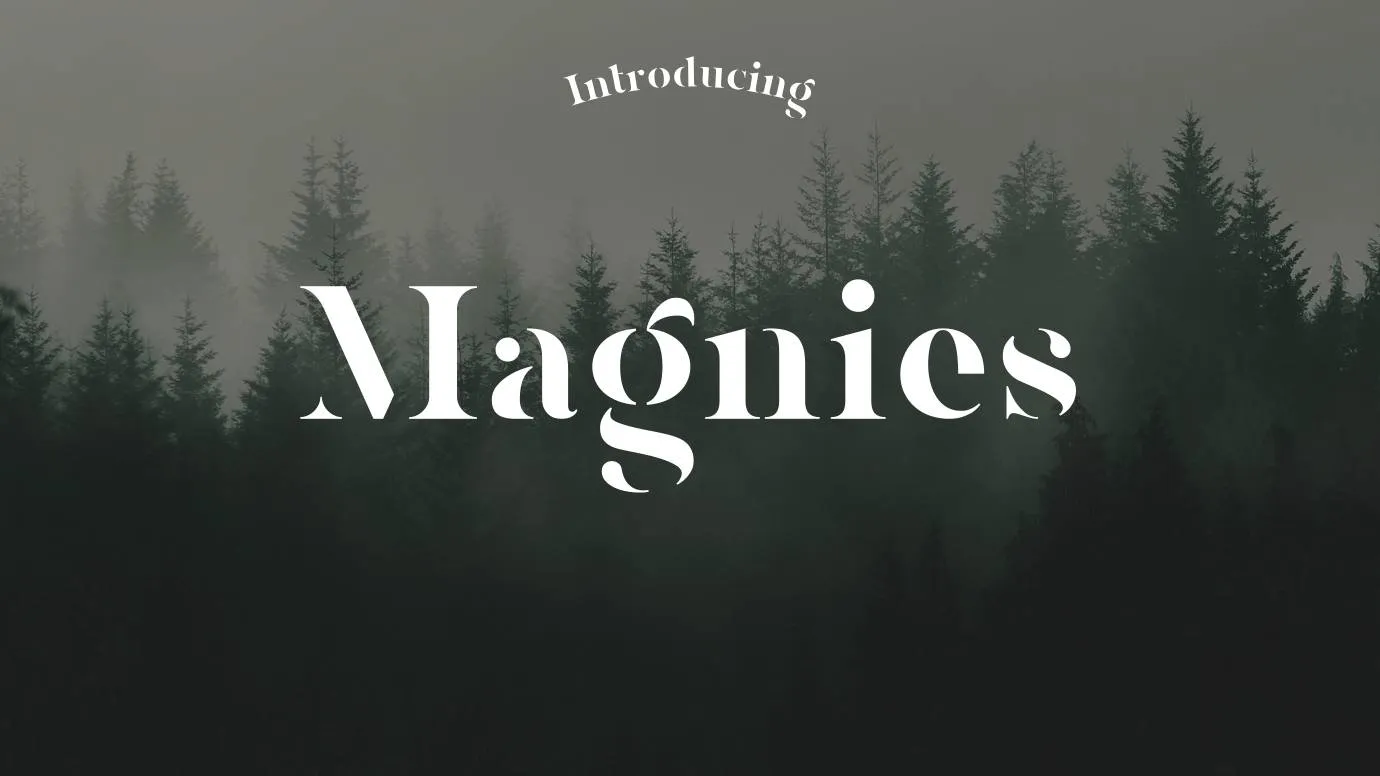
Magnies Font Family
Magnies Font Family has two styles and stylish swashes. Ahmad Ramzi Fahruddin is the designer of this amazing serif typeface published through the Arterfak Project with both Open Type and True Type formats.
It comes with feminine letterforms that make your design more stylish than others. Due to its bold, thin, and good contrast look, it is appropriate for pairing with hellowin font which comes in the serif type.
Magnies Font